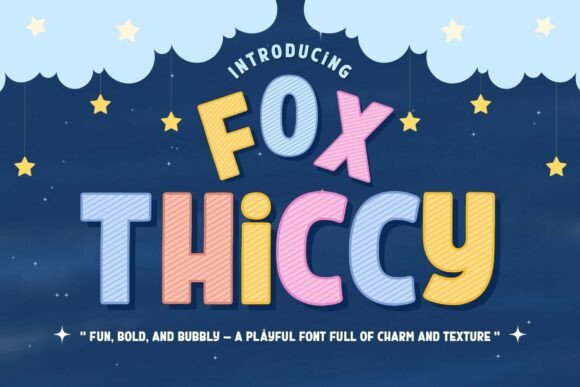
Introducing Fox Thiccy Font: The Ultimate Display Font for Creative Projects
Are you looking for a font that can add a touch of fun and coolness to your creative projects? Look no further than Fox Thiccy Font! This display font family is designed to brighten up your designs with its playful and cheerful vibe. With four stylish styles to choose from, Fox Thiccy offers endless combinations for crafting eye-catching titles, branding, kids’ designs, and joyful quotes.
Meet the Four Playful Styles of Fox Thiccy
Fox Thiccy Font comes in four playful styles: Regular, Outline, Strokes, and Shadow. Each style adds its own unique personality to your designs, allowing you to experiment with different looks and feels.
- Regular: The bold and sturdy Regular style is perfect for making a statement. Its clean lines and smooth curves make it ideal for titles, headings, and branding.
- Outline: The stylish Outline style adds a touch of sophistication to your designs. Its delicate lines and curves create a beautiful outline that can be used to add depth and dimension to your text.
- Strokes: The whimsical Strokes style is perfect for adding a playful touch to your designs. Its irregular lines and curves create a fun and dynamic look that’s ideal for kids’ designs, stickers, and games.
- Shadow: The dimensional Shadow style adds a cool 3D effect to your text. Its subtle shadow creates a sense of depth and dimension, making it perfect for titles, headings, and quotes.
Endless Design Possibilities with Fox Thiccy
Fox Thiccy Font is versatile and can be used for a wide range of design projects. Here are some ideas to get you started:
- Children’s Books: Fox Thiccy is perfect for kids’ books, adding a playful and cheerful touch to your storybook characters and illustrations.
- Stickers and Games: The fun and playful vibe of Fox Thiccy makes it ideal for stickers, games, and other kids’ activities.
- Posters and Flyers: Fox Thiccy’s bold and eye-catching styles make it perfect for creating posters and flyers that grab attention.
- Playful Packaging: Add a touch of whimsy to your product packaging with Fox Thiccy’s playful and cheerful font styles.
Key Features of Fox Thiccy Font
Fox Thiccy Font has several key features that make it a must-have for designers:
- Easy to Layer: Fox Thiccy’s styles can be easily layered to create unique and complex designs.
- Fun to Mix: Experiment with different style combinations to create a look that’s all your own.
- Full of Character: Fox Thiccy’s playful and cheerful vibe adds a touch of personality to every letter.
Tips and Tricks for Using Fox Thiccy Font
Here are some tips and tricks for getting the most out of Fox Thiccy Font:
- Experiment with Style Combinations: Don’t be afraid to try out different style combinations to create a unique look.
- Play with Color: Fox Thiccy’s playful vibe lends itself well to bright and bold colors.
- Use for Kids’ Designs: Fox Thiccy’s fun and playful vibe makes it perfect for kids’ designs, from stickers to children’s books.